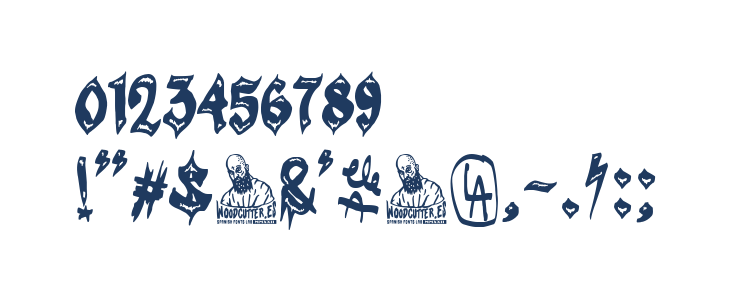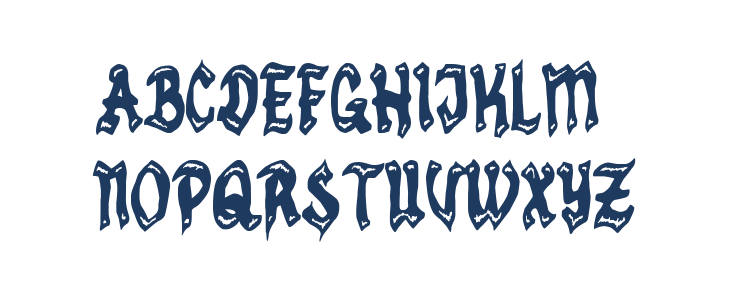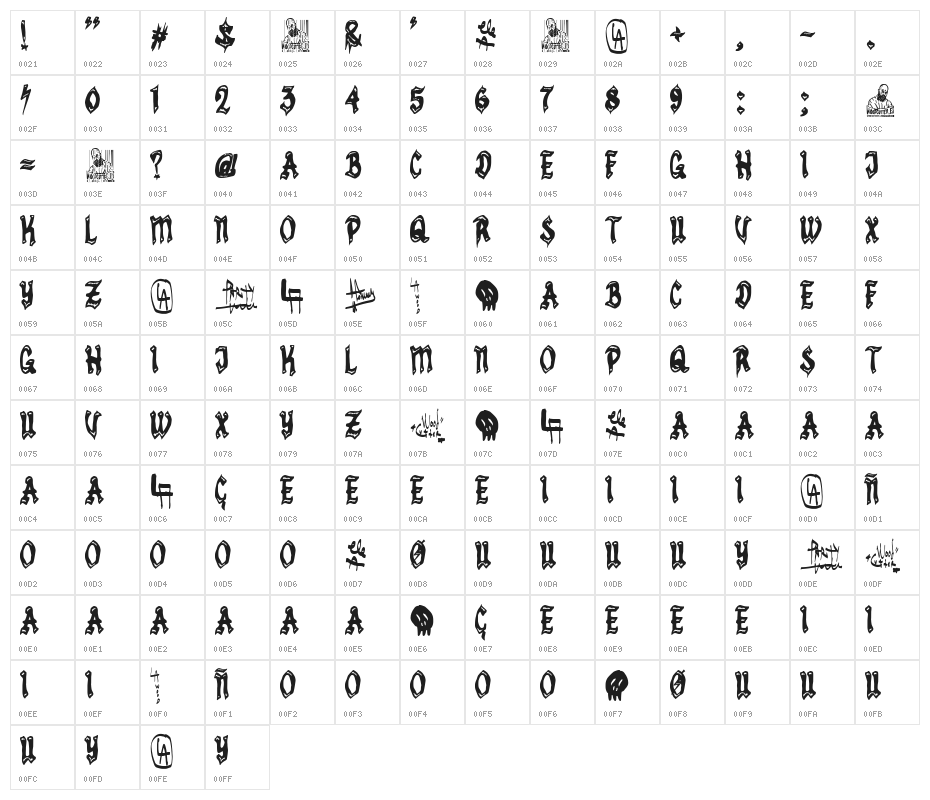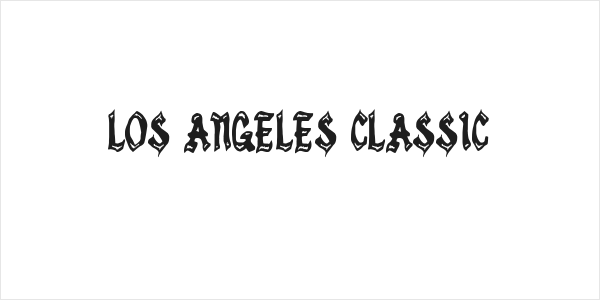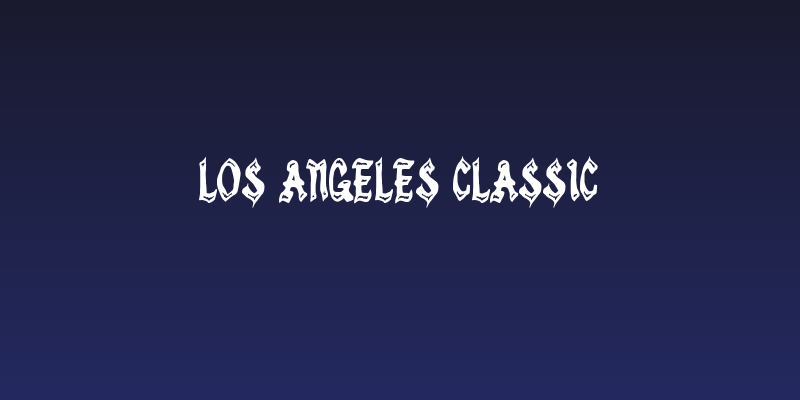
Los Angeles Classic Font
Los Angeles Classic Description
A bold, jagged display font with sharp, irregular edges and a hand-drawn, graffiti-inspired aesthetic. The characters have high contrast between thick and thin strokes, giving a dramatic and edgy appearance. The style is reminiscent of urban street art or tattoo lettering, with exaggerated forms and a strong visual impact.
| Overall Style | Decorative, Urban, Edgy, Graffiti |
| Use Case | Headlines, Logos, Posters, Branding |
| Proposed Projects | Posters, music album covers, event flyers, streetwear branding, tattoo designs, skateboarding graphics, urban-themed projects. |